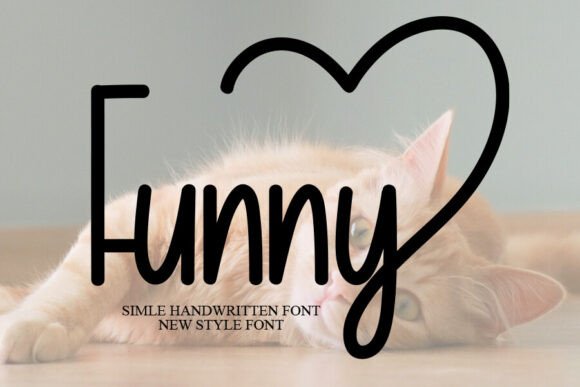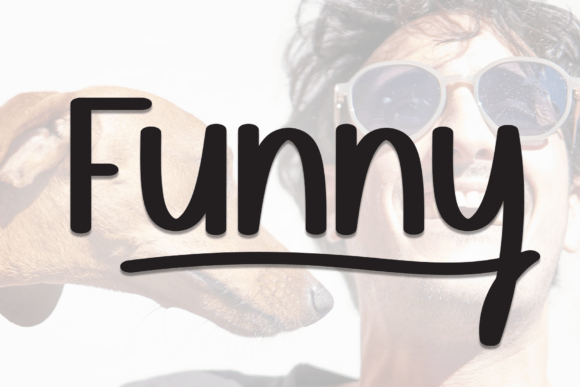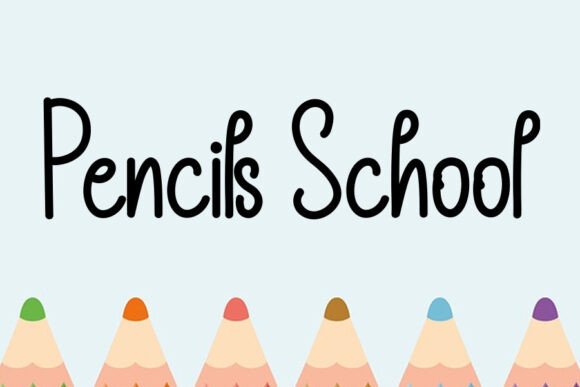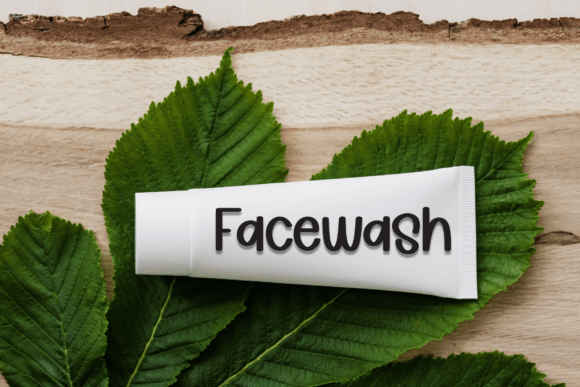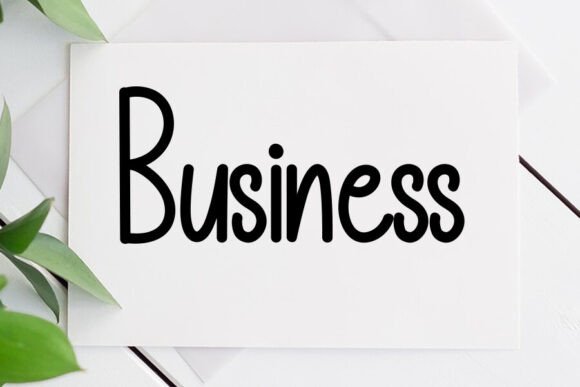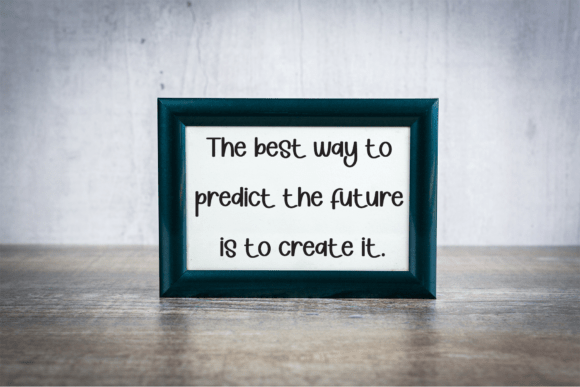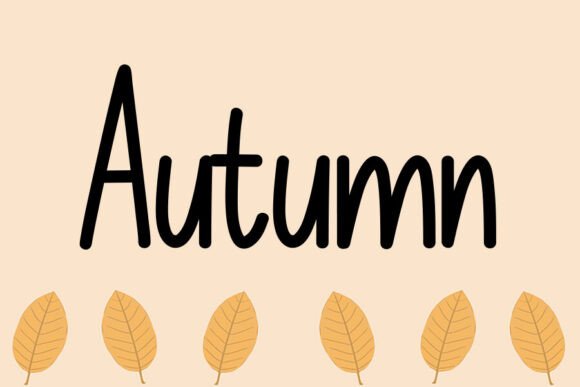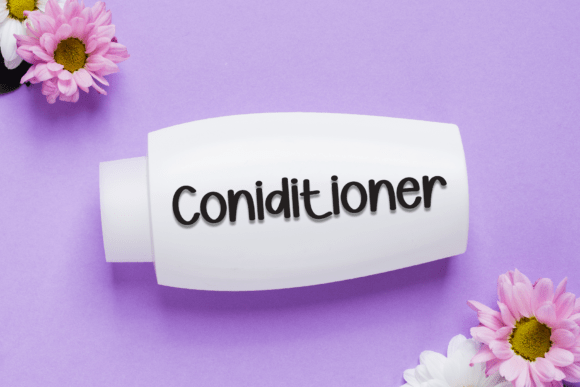
Funny Font
About the Funny Font
Crafted with precision, the Funny Font is ready to bring your ideas to life. Funny is a casual and neat display font that radiates a fresh, friendly vibe. With clean lines and a relaxed structure, it’s perfect for packaging, posters, and social media graphics. The approachable design adds charm and clarity to projects while maintaining a polished appearance.
Funny Font’s friendly, casual style makes it ideal for headlines, short-form content, and branding projects that prioritize approachability. It works exceptionally well on packaging, posters, and social media, adding a touch of playful sophistication. However, its legibility suffers in longer text blocks, so avoid using it for body copy or UI elements.
Its overall personality is best described as cheerful and approachable, yet polished and professional. It’s a versatile choice for brands targeting a younger demographic or aiming for a friendly, informal brand image.
Funny Font Usage Examples
Funny Font Example